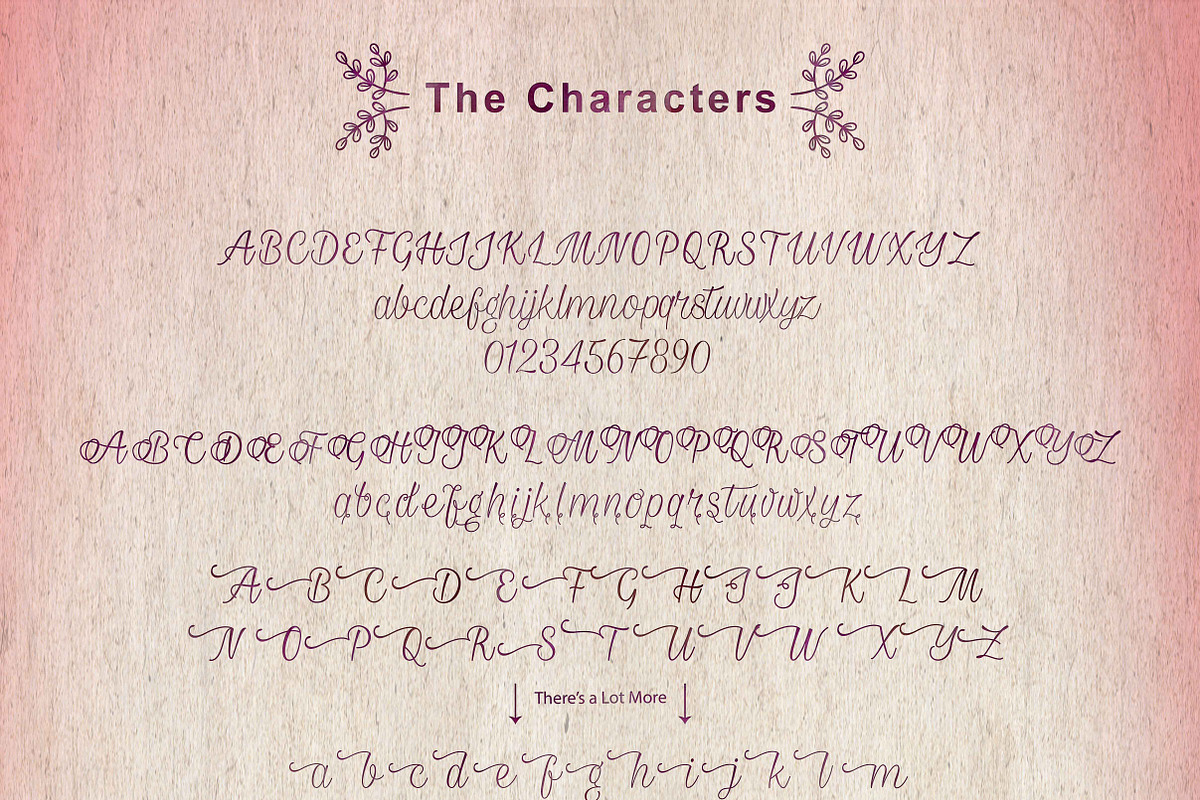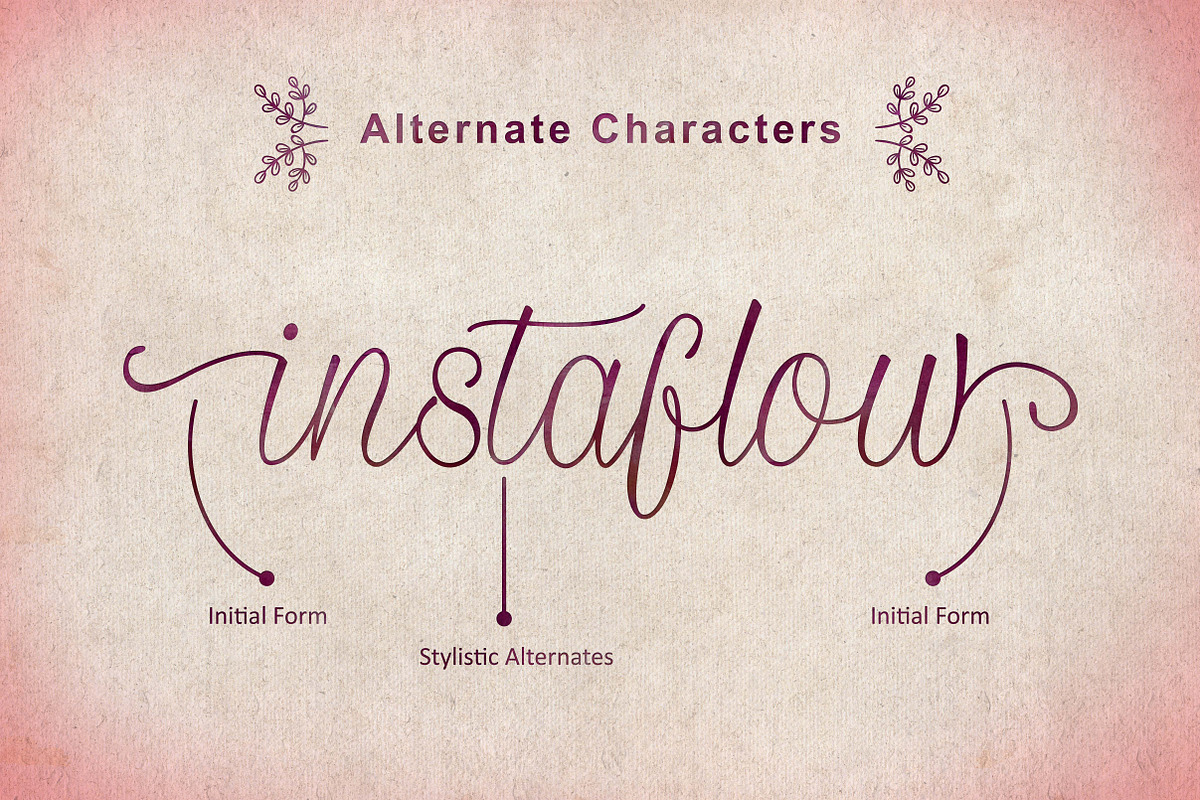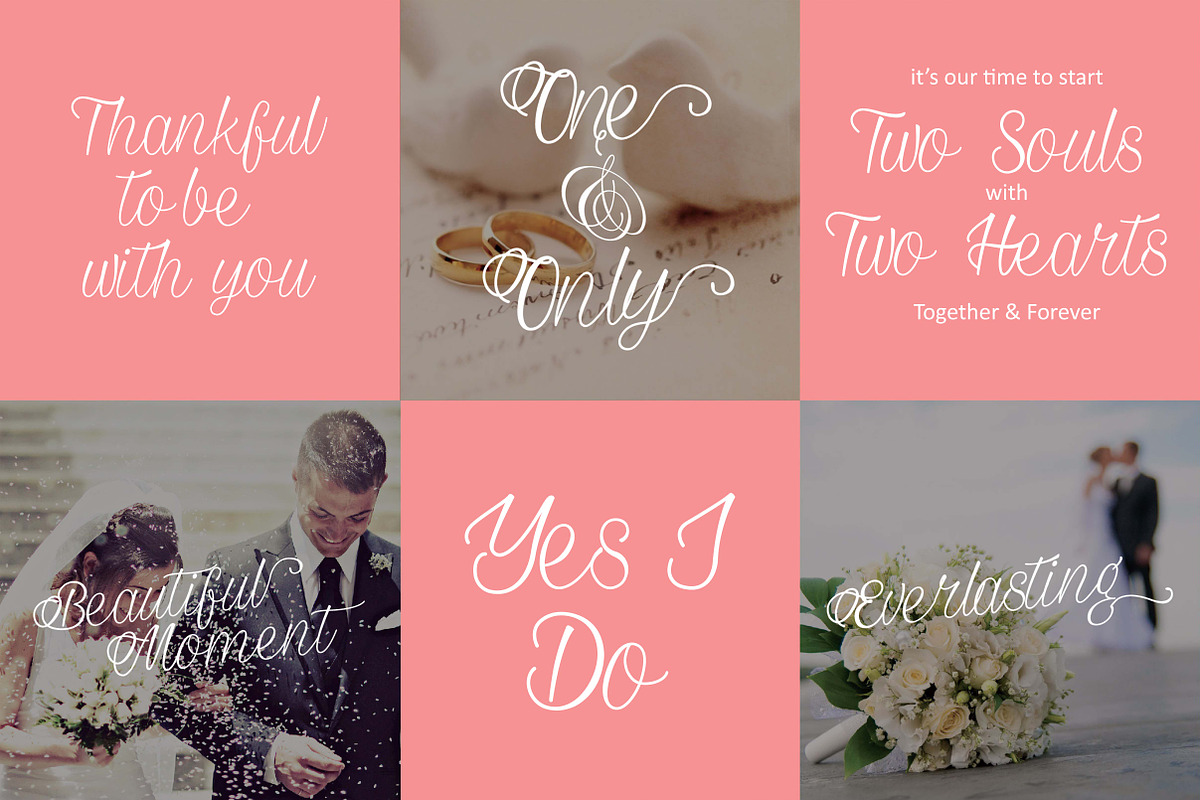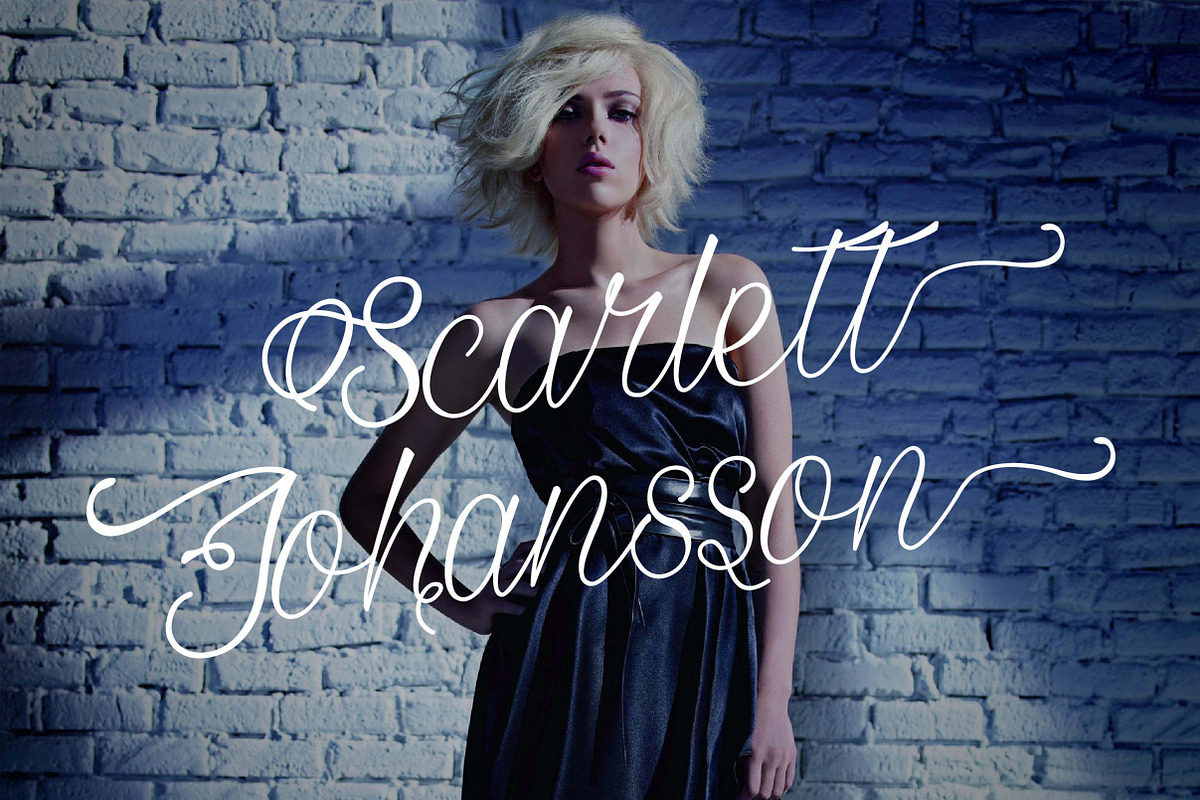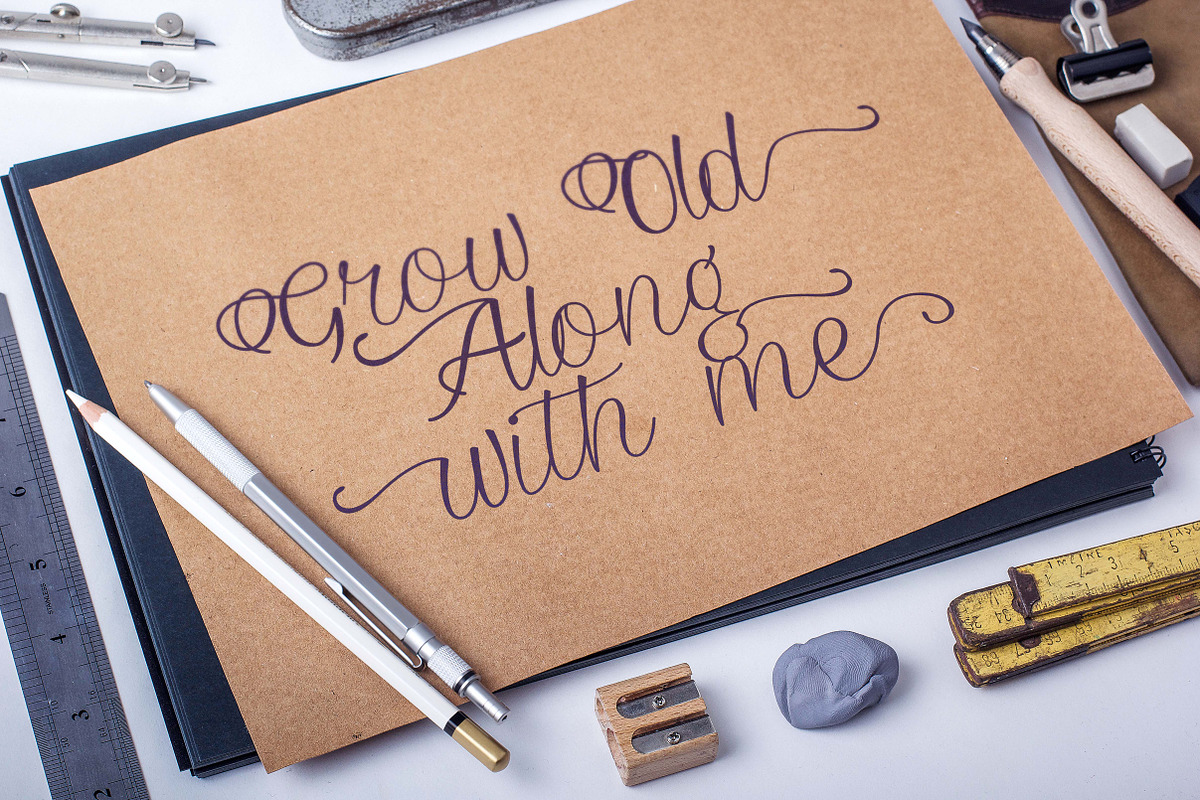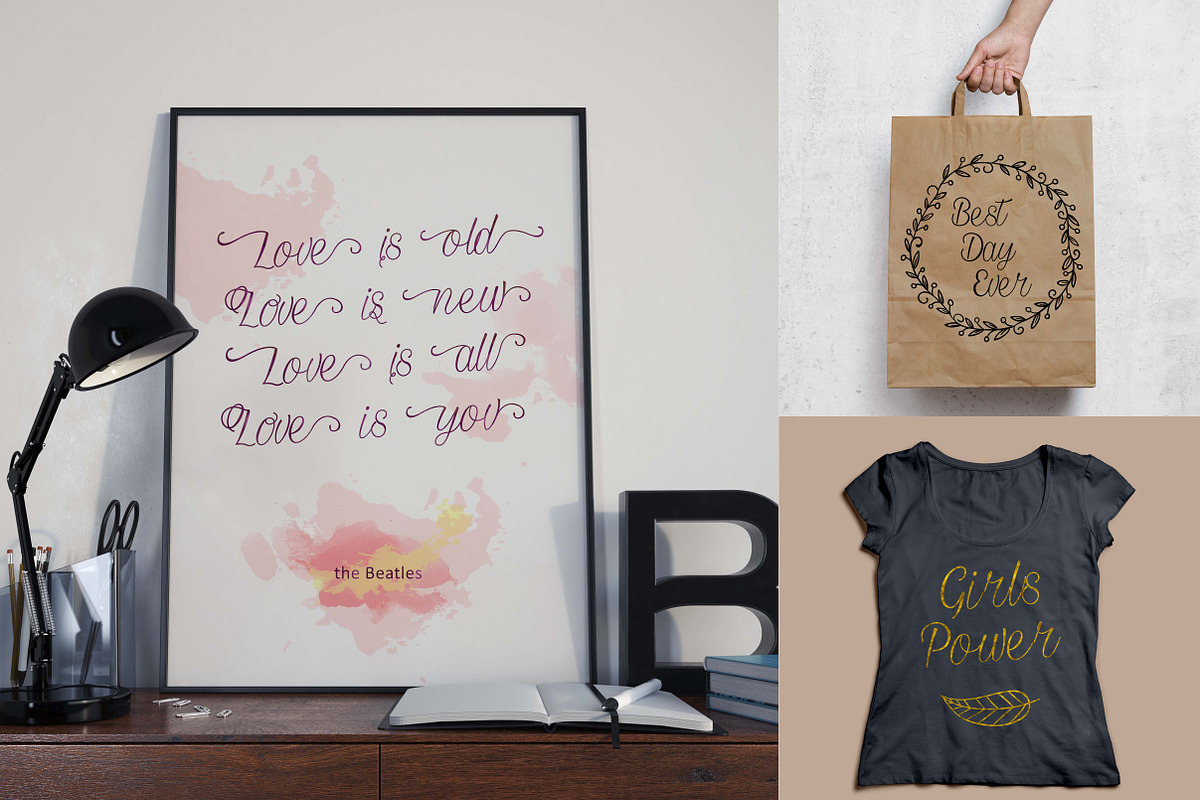
Ratnasari Script + Extras
Ratnasari Script + Extras by Davendra Typeface is a font selected for branding, posters, packaging, typography.
- Ratnasari Typeface (Ratnasari Typeface .otf & .ttf) is a set of upper & lowercase characters with total 230 glyphs, include numerals and sym
- A full set of stylistic alternates for Uppercase & lowercase characters (Web font include).
Why Ratnasari Script + Extras is worth a look
Ratnasari Script + Extras by Davendra Typeface fits naturally into Branding, posters, packaging, typography.